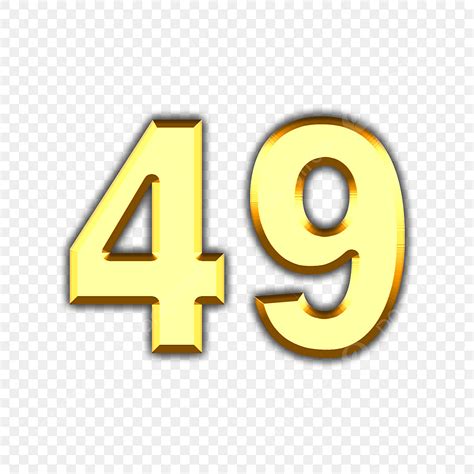
The Significance Of The Number 49 In Font Design
The Significance of the Number 49 in Font Design
Hey guys! Ever wondered if there’s some hidden meaning behind numbers when it comes to fonts? Today, we’re diving deep into the curious case of the number 49 and its potential significance in font design. While it might not be a universally recognized principle, exploring the possibilities can give us a fresh perspective on typography. So, let’s get started and unravel this numerical mystery!
Exploring Numerical Influences in Typography
When we talk about numerical influences in typography , we’re not just pulling numbers out of a hat. Historically, various numbers have held symbolic or practical relevance in different design fields. Think about the golden ratio (approximately 1.618) and its use in architecture and art to create aesthetically pleasing proportions. Could similar numerical relationships apply to fonts?
One way to think about the number 49 is as a square (7x7). In design, squares and grids often provide a foundational structure. Imagine a font where the key proportions are somehow derived from this 7x7 grid. Perhaps the height of the capital letters is related to 7 units, and the width of certain characters is similarly influenced. This grid-based approach could lead to a font that feels inherently balanced and harmonious.
Another angle is to consider the number 49 within the broader context of modular typography. Modular typefaces are constructed from a limited set of repeating elements. These elements are often based on geometric shapes or units. In such a system, the number 49 could represent the total number of modules used to construct each character, or it could define the size of the modular grid. This approach allows for immense flexibility and creativity, as designers can combine these modules in countless ways to create diverse letterforms.
Furthermore, let’s not forget the subjective and cultural associations with numbers. While the number 49 may not have a universally recognized symbolic meaning in typography, individual designers might imbue it with personal significance. Perhaps it represents a specific date, a lucky number, or some other meaningful concept. This personal connection could then inspire the design of a unique and expressive typeface.
In conclusion, while the number 49 might not be a cornerstone of font design, exploring its potential influences opens up fascinating avenues for creative exploration. By considering its geometric properties, modular applications, and subjective associations, designers can push the boundaries of typography and create fonts that are both visually appealing and conceptually rich. So, next time you’re working on a font, why not experiment with the number 49 and see where it takes you?
Practical Applications and Considerations
Alright, let’s get practical! How can we actually use the number 49 in our font design process? Here are a few ideas to get your creative juices flowing. Keep in mind that these are just starting points, and the real magic happens when you start experimenting and adapting these concepts to your own style.
First up, consider using a 49-unit grid as the foundation for your font. This means dividing the space for each character into a grid of 7x7 squares. You can then use this grid to precisely define the shapes of your letters. For example, the height of a capital letter might span 7 units, while the width of a narrow character like ‘I’ might be just one or two units. This approach ensures consistency and harmony across the entire typeface.
Another idea is to use the number 49 to determine the proportions of key elements within your font. For instance, you could define the x-height (the height of lowercase letters) as a fraction of 49. Maybe the x-height is 49 2 units, or perhaps it’s a more complex ratio derived from the number 49. Similarly, you could use the number 49 to set the leading (the space between lines of text). By tying these proportions to the number 49, you create a cohesive and visually pleasing relationship between different aspects of your font.
Let’s also think about using the number 49 in the design of specific characters. You could incorporate geometric shapes based on the number 49 into the letterforms themselves. For example, you might create a rounded corner with a radius of 7 units, or you could design a serif that is 49 units long. These subtle details can add a unique and memorable touch to your font.
Of course, it’s important to remember that these are just guidelines. Don’t feel constrained by the number 49! The goal is to use it as a tool to inspire creativity and explore new possibilities. Feel free to break the rules and experiment with unconventional approaches. The most important thing is to create a font that is both visually appealing and functional.
Finally, consider the overall context in which your font will be used. Is it intended for headlines, body text, or display purposes? This will influence your design decisions and help you create a font that is well-suited to its intended application. For example, a font designed for body text needs to be highly legible, while a display font can be more expressive and decorative.
So, go forth and experiment! Explore the potential of the number 49, and see what unique and innovative fonts you can create. Remember, the world of typography is constantly evolving, and it’s up to us to explore new possibilities and push the boundaries of what’s possible. Happy designing!